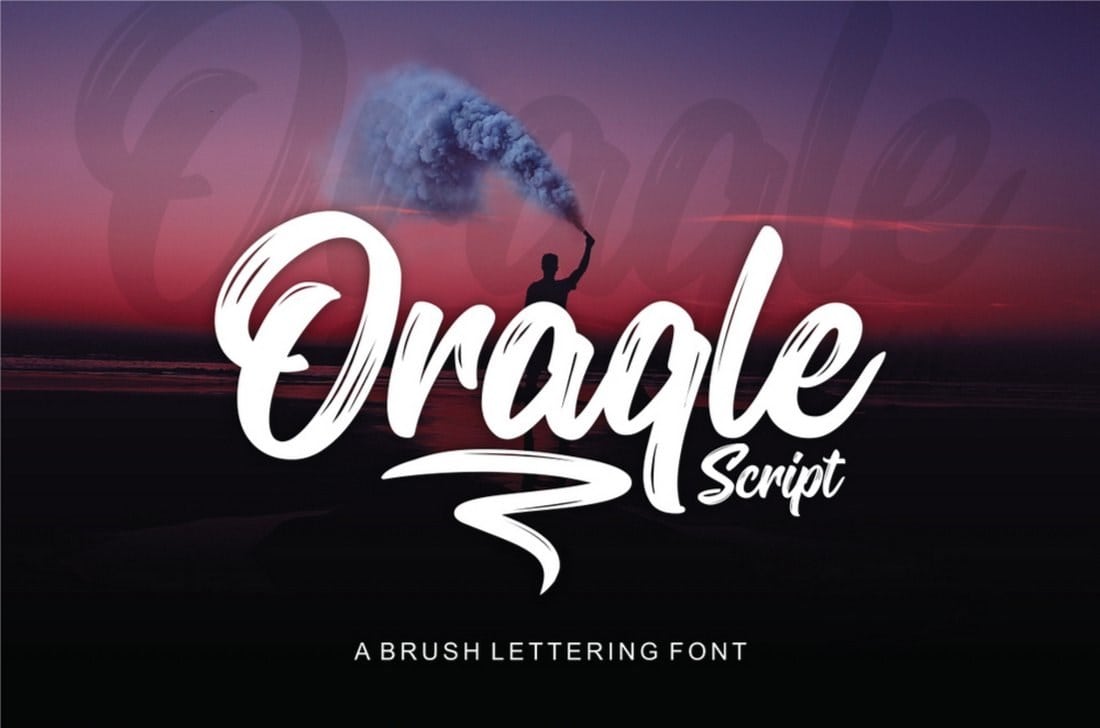
Check out the fonts below and keep them in mind for your next design project. Truly something readable and pleasing to the eyes. Strenuous is one of the totally free sports fonts presented by typodermic fonts. It sports rough jagged edges with a hand painted textured feel.
Filter by editor compatible details. Make the cut ~~ fonts. If you want to make your banner as easy to read as possible, you might as well use helvetica. Many of the free fonts featured here were developed by designers, for designers, so they understand the need for versatile, polished, free typefaces firsthand.
Watch out font free download. The font is available in several versions, including all. This font is created with a unique brush tip style. Check out the fonts below and keep them in mind for your next design project. Srabi Bold Script Font Dafont Free.
Find some new ones to add to your collection! A good balance of playful and professional, relica sports a rounded typeface that’s reminiscent of pastry and bakery brands. Helvetica is popular because it is clear. As a photoshop alternative, try mockofun to make text design online in just a few minutes. Best Fonts For Posters Best Laptop.
Handwriting fonts can add so much personality and charm to your compositions. This font is created with a unique brush tip style. Try out this free handwriting font today. All the fonts you need and many other design elements, are available for a monthly subscription by subscribing. 4 Best LinkedIn Banner Templates In 2021.
In fact, some people have gone so far as to accuse it of being overused. 192 character concepts bundle view & download. 25+ modern, elegant fonts with classy designs Watch out font is an interesting and attractive font. 20+ Best 3D Fonts 2020 (Free & Premium).
Free download for pro subscribers! It could work well as a comic font too. We hope this article will help you find the best font for your next project. Search logo script wedding modern handwriting display calligraphy bold brush all. Regular Brush Script Font Dafont Free.
Check out the fonts below and keep them in mind for your next design project. You can use this typeface for homeware. Rise is perfect for giving a bold and strong touch to your posters. Search logo script wedding modern handwriting display calligraphy bold brush all. Font expert 2017 make custom fonts.
It belongs to the script family. In fact, some people have gone so far as to accuse it of being overused. This beautifully elegant and minimal font is completely free for you to use with your personal and commercial projects. Helvetica is popular because it is clear. MTF Banner Font {Fonts} Illustration & Design.
We have 2276 free poster fonts to offer for direct downloading · 1001 fonts is your favorite site for free fonts since 2001 Though, it has been criticized for the tight spacing. Click to find the best 235 free fonts in the banners style. You can use this font for graphic design and applications such as photoshop, adobe illustrator, and coreldraw. 35 Best Script Fonts Fonts Graphic Design Junction.
All the fonts you need and many other design elements, are available for a monthly subscription by subscribing. Bold text effect editable cartoon and comic text style. In the image below i used the outline font version of the banner font to make coloring pages. But it works best on a website or digital design. 60+ Best Big, Poster Fonts of 2020 Design Shack.
Bold text effect editable cartoon and comic text style. Try out this free handwriting font today. This font is available in a regular style. Free download high quality banner fonts from fontmirror.com. 100+ Best Free Fonts for Designers 2021 (Serif, Script & Sans Serif.
Find some new ones to add to your collection! Truly something readable and pleasing to the eyes. Mf heart stuff by misti's fonts. All the fonts you need and many other design elements, are available for a monthly subscription by subscribing. 60+ Best Big, Poster Fonts of 2020 Design Shack.
This font can easily download and install on your operating systems. Personal use free 12909 downloads. Many of the free fonts featured here were developed by designers, for designers, so they understand the need for versatile, polished, free typefaces firsthand. The outline fonts or hollow fonts are the best fonts for coloring. 100 Free & Highly Creative Fonts For Beautiful Typography 1stWebDesigner.